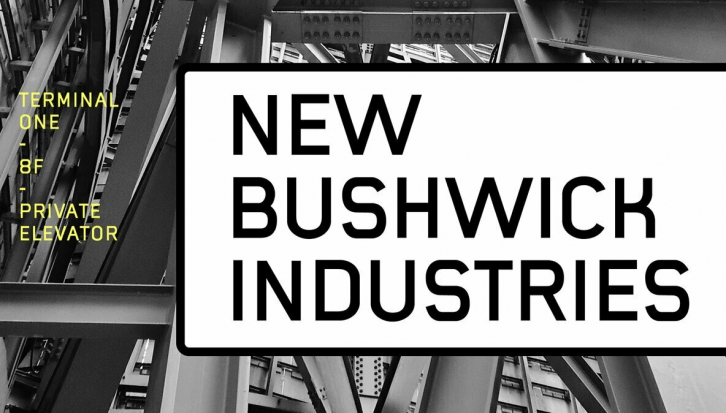
Mister Giacco Pro, designed by Diego Giacconte, is a simple stroke sans serif font designed with a solid structure that is ideal for corporate use, branding and any design where legibility and personality are required. It is available in 3 weights including small caps and italics.